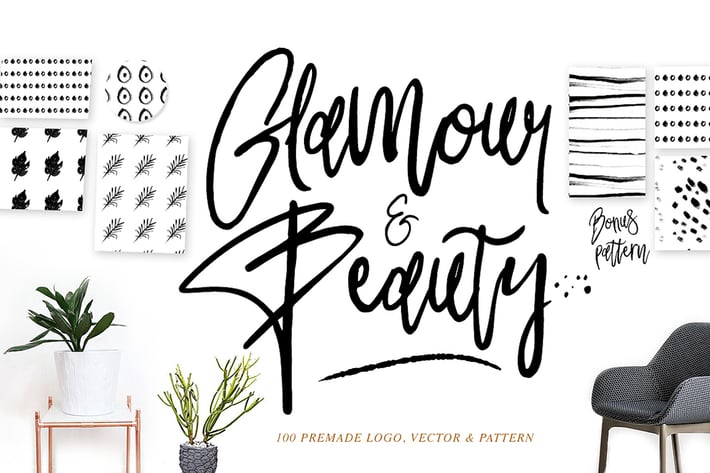
Glamour Font+ 90premade Logo+Pattern
Glamour & Beauty is Freestyle handmade signature type, suitable for bloging, DIY project Title, logo, packaging, clothing, food, Weeding Invitaion, or branding with 90 premade logo,vector+10 pattern could you make great designs with total 100 freebies.
Glamour & Beauty available in Two lowercase style (stylistic alternates) with ligatures.